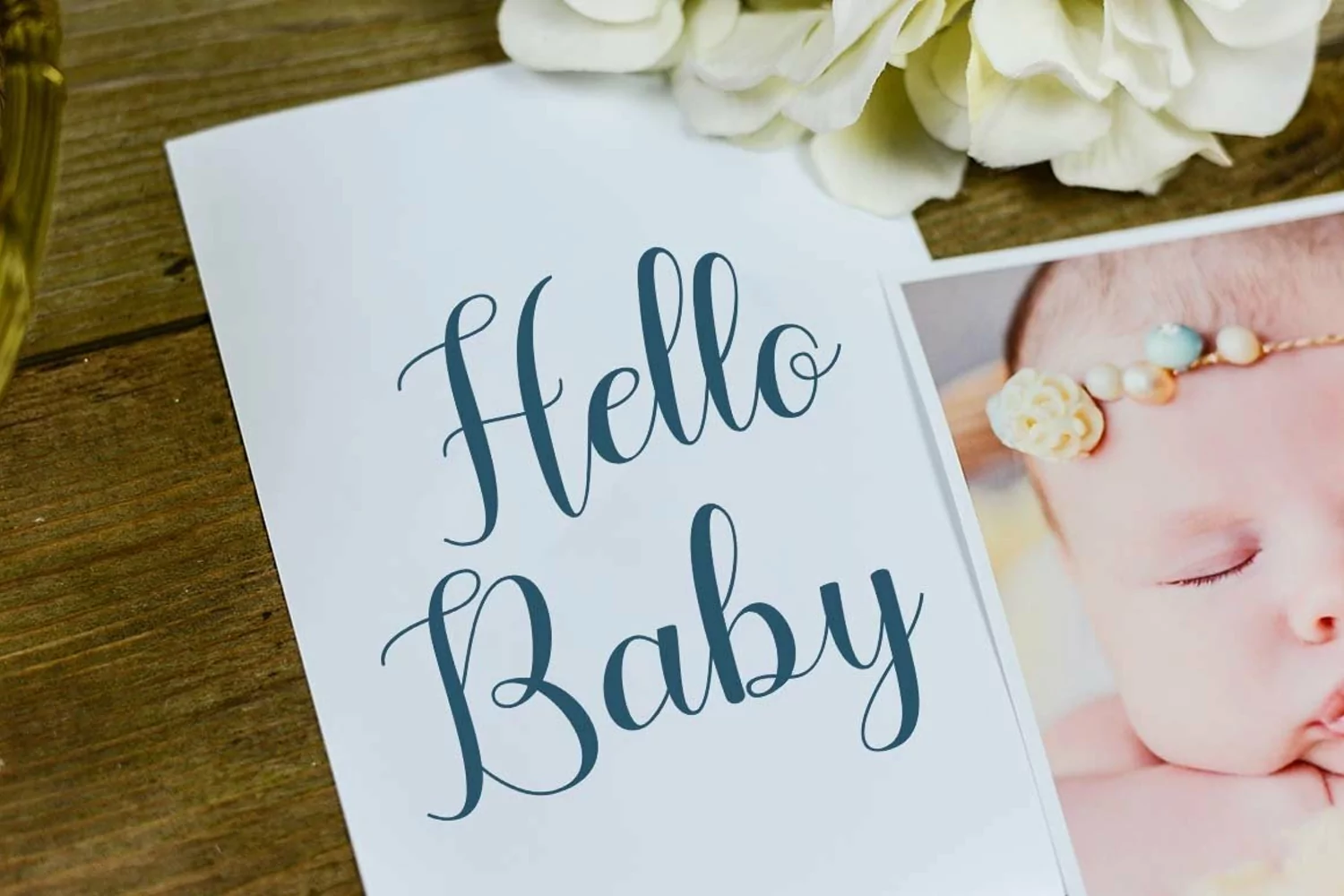
Holly Molly is an elegant and romantic script font. It maintains its classy calligraphic influences while feeling modern and sweet. This font is PUA encoded which means you can access all of the glyphs and swashes with ease